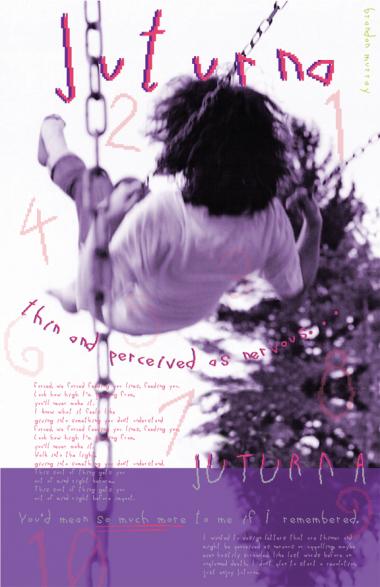
• Influenced by the album Juturna by Circa Survive, I created this font from my listening experience. Also, Esao Andrews album art for Juturna also coerced me into a more grungy feel for the letter forms. I also don't see many typefaces like this, so I wanted to design letters that are thinner and might be perceived as nervous or appalling, maybe even hastily scrawled, like last words before an unplanned death. I don't plan to start a revolution, just enjoy Juturna.
Very nice. It looks like it was written by a nervous hand.